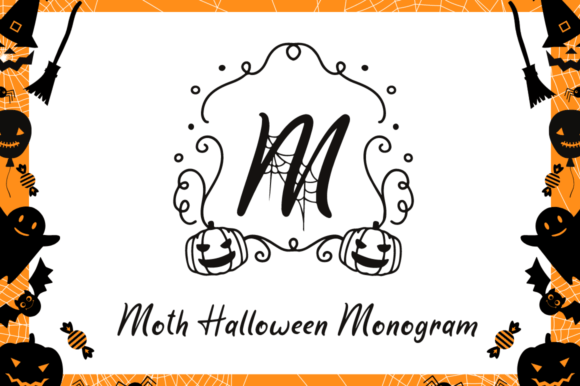
Embark on a spine-chilling voyage with Moth Halloween Monogram, a font family that captures the essence of Halloween like no other. This decorative font, meticulously crafted by attypestudio, is a symphony of spooky elegance, perfect for conjuring up a sense of eerie delight in your designs.
With Moth Halloween Monogram, you'll have the power to transform ordinary designs into hauntingly beautiful works of art. Let your creativity run wild as you explore two distinct Halloween styles, effortlessly switching between uppercase and lowercase to unveil a world of enchanting variations.
Unleash the enchanting spirit of Halloween with Moth Halloween Monogram. Its intricate details and playful character will cast a spell on your designs, making them the talk of the town. From logos and branding to social media posts and wedding cards, this font will add a touch of haunting beauty to any project.
Dare to step into the realm of the supernatural with Moth Halloween Monogram. Let its spectral charm cast a spell on your designs, leaving your audience spellbound and craving more. Embrace the magic of Halloween with this font and let your imagination soar to new heights of creativity.